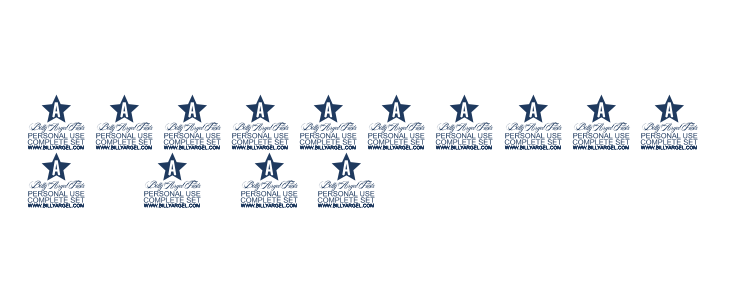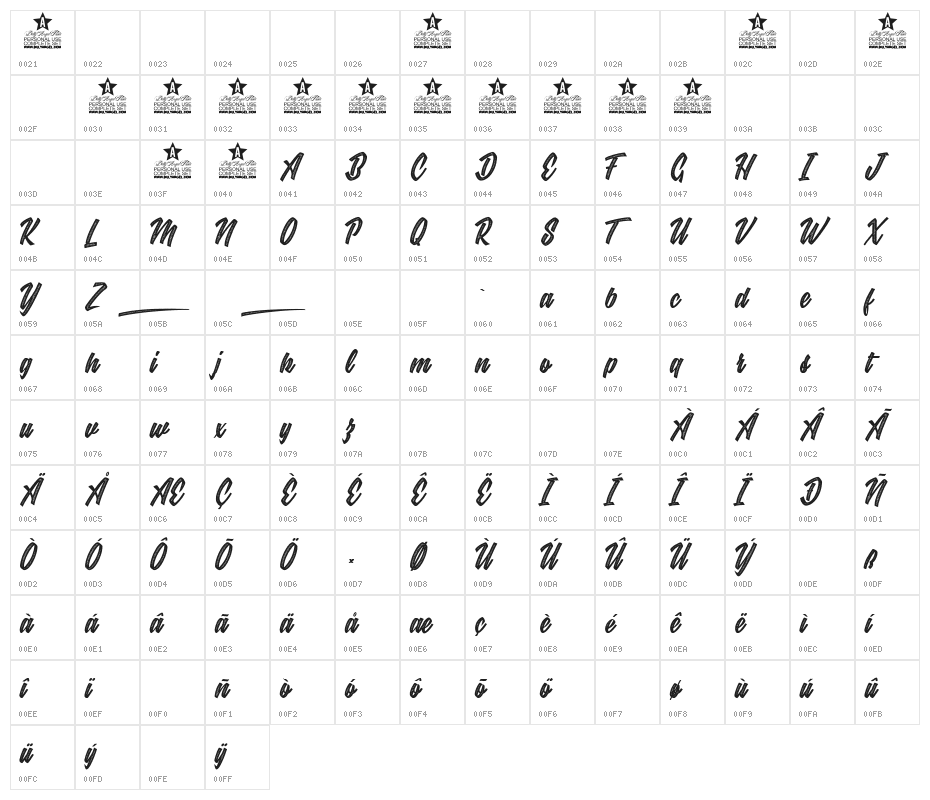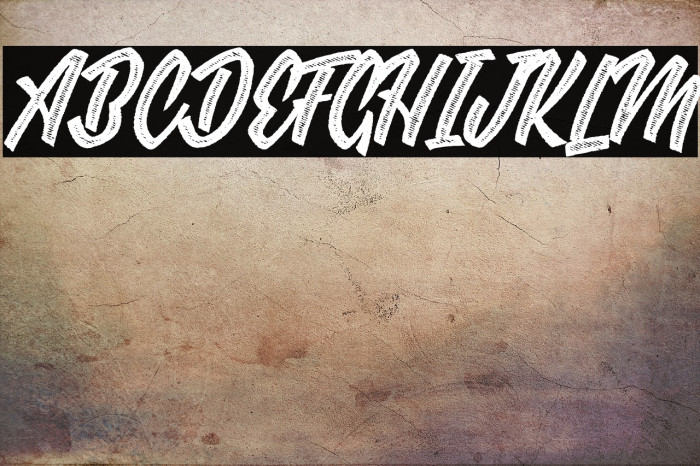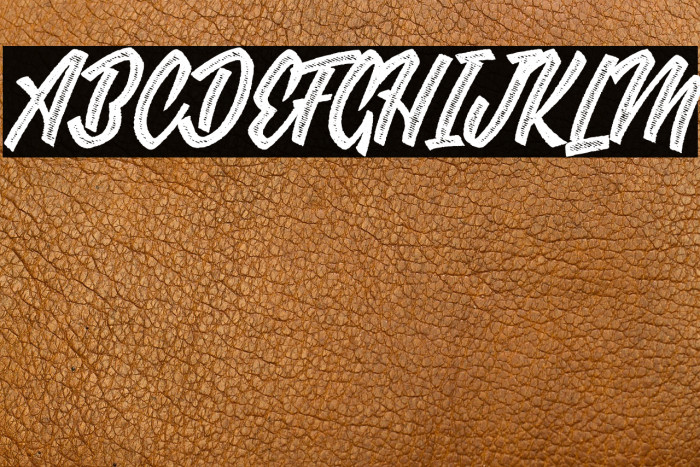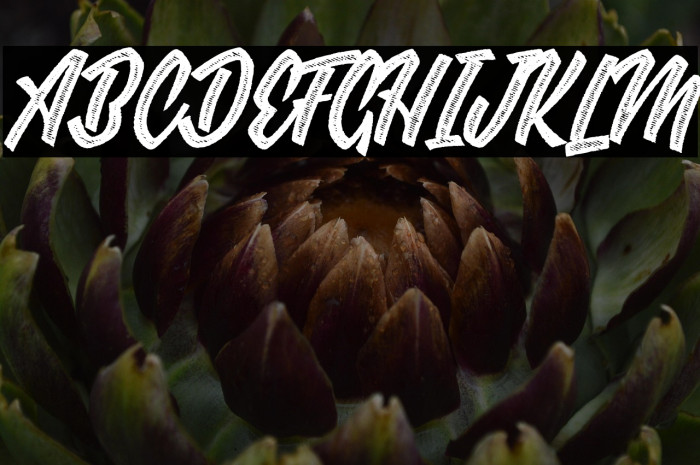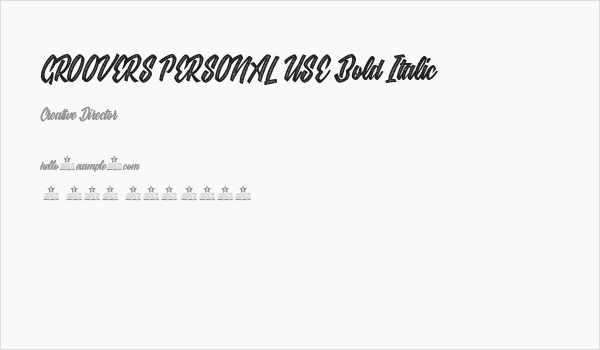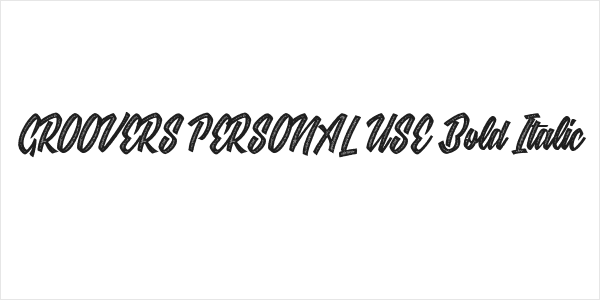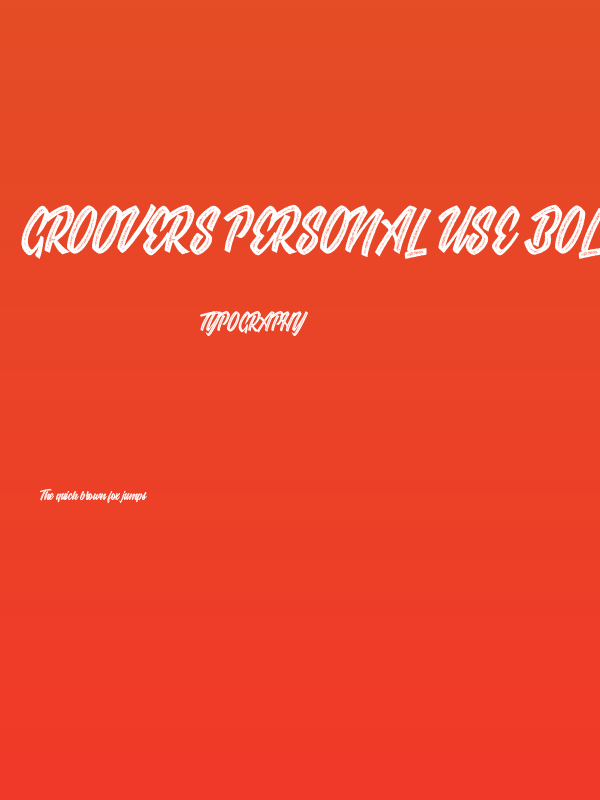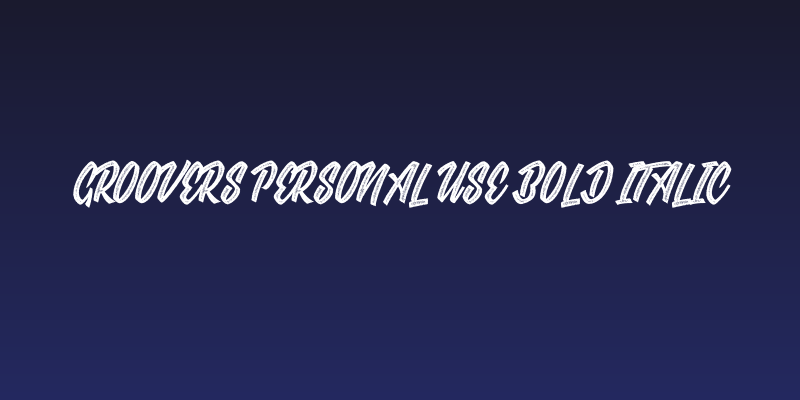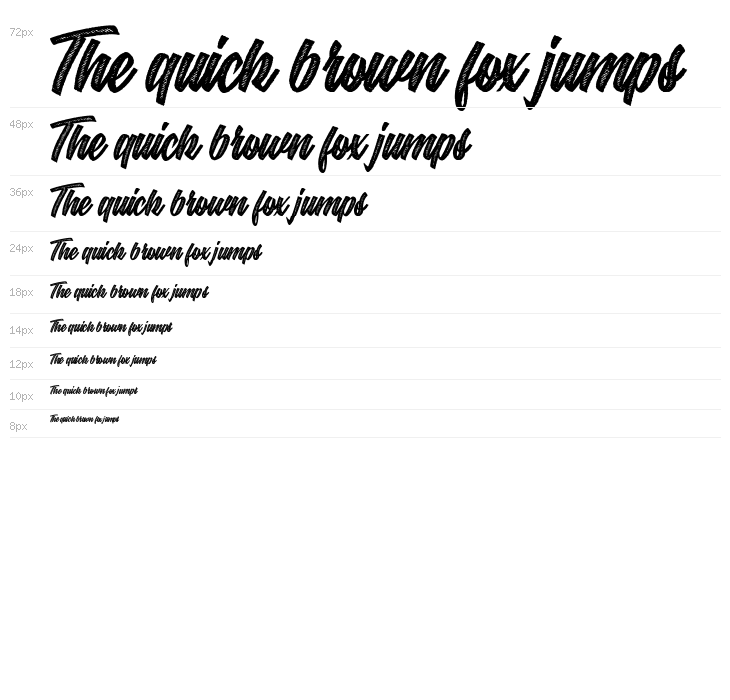
GROOVERS PERSONAL USE Bold Italic Font
GROOVERS PERSONAL USE Bold Italic Description
This font features a bold and italicized script style with a textured, hand-drawn appearance. The letters are slanted, giving a dynamic and energetic feel. The strokes are thick and consistent, with a slight roughness that adds character and a vintage touch. The uppercase and lowercase letters maintain a cohesive style, with the uppercase being more pronounced. The numbers and special characters follow the same design, ensuring uniformity across all elements. This font is ideal for creating eye-catching designs that require a personal and artistic flair.
| Proposed Projects | Ideal for branding, posters, album covers, and any project needing a bold, artistic touch. |